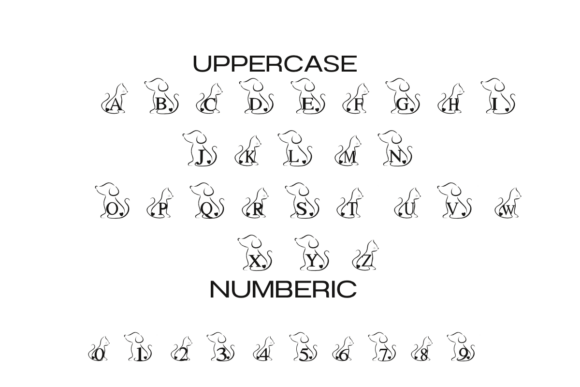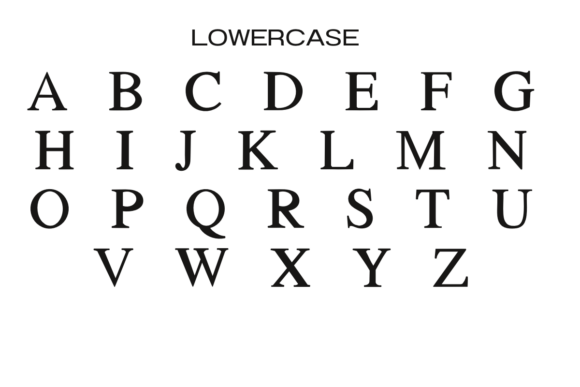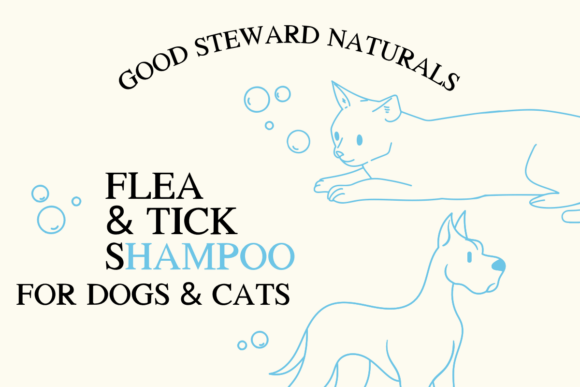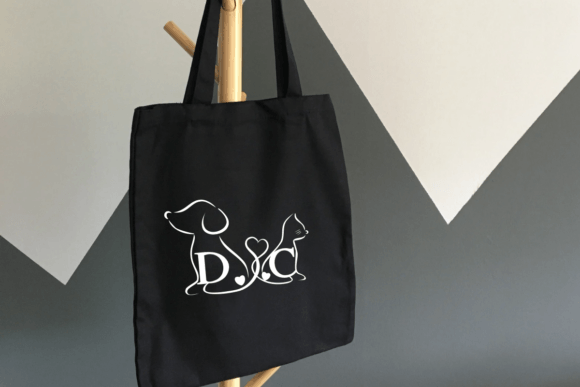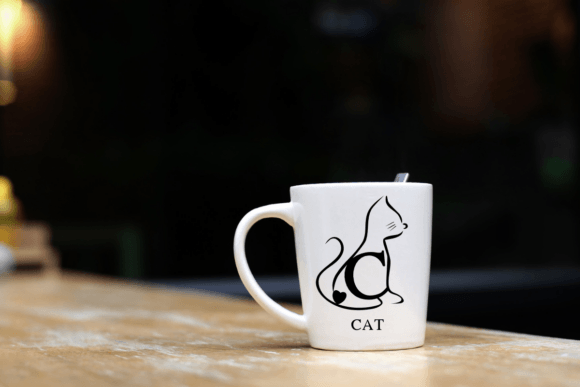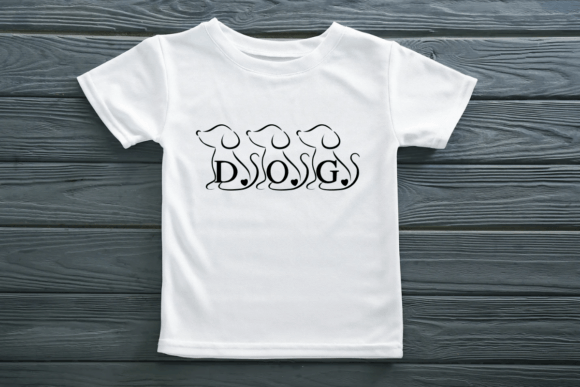
Unleashing Creativity with the Dog and Cat Font
Have you ever stared at a blank canvas, pencil in hand, and suddenly felt the urge to bring your furry friends to life? For designers, that creative spark can be a powerful motivator, leading to innovative and playful designs that capture the essence of our beloved pets. One font that embodies this spirit is the Dog and Cat Font, a charming and whimsical typeface that incorporates dog and cat elements into its letterforms.
Perfect for projects related to pets, animal lovers, or children, the Dog and Cat Font is a valuable asset for designers looking to add a lighthearted and playful touch to their work. Its hand-drawn or cartoonish style makes it ideal for creating logos, invitations, pet-related products, and more. By incorporating the Dog and Cat Font into your designs, you can bring a smile to the faces of pet owners and enthusiasts alike.
- Unique Characteristics: The font features adorable animal silhouettes, including dogs and cats, which can be used as decorative elements or icons.
- Characters and Glyphs: The font includes a wide range of characters, including uppercase and lowercase letters, numbers, and punctuation marks, as well as animal-themed symbols and icons.
Design Review: Dog and Cat Font
First off, I want to say that I love the playfulness and charm of the Dog and Cat Font. It’s perfect for pet-related businesses or any project that needs a bit of whimsy ✨. The font is highly customizable, allowing you to adjust the size, color, and even the individual cat and dog silhouettes to suit your design needs.
While the Dog and Cat Font is a great addition to any designer’s toolkit, there are a few limitations to be aware of ⚠️. For one, the font is not as extensive as some other fonts on the market, with only a few different cat and dog silhouettes to choose from. Additionally, the font may not be suitable for high-end or professional projects, as it can come across as a bit playful and unrefined.
Overall, I think the Dog and Cat Font is a great choice for designers looking for a fun and playful font. While it may have some limitations, it’s perfect for pet-related businesses, children’s projects, or any design that needs a bit of whimsy ✨.